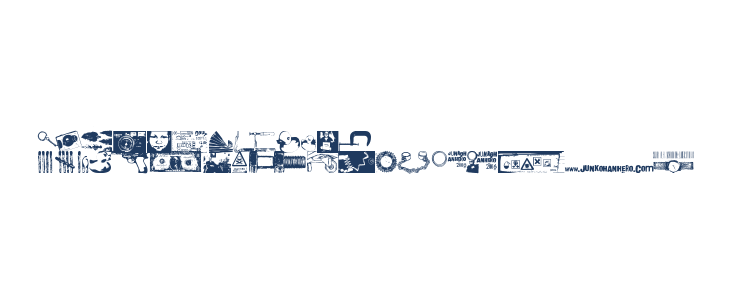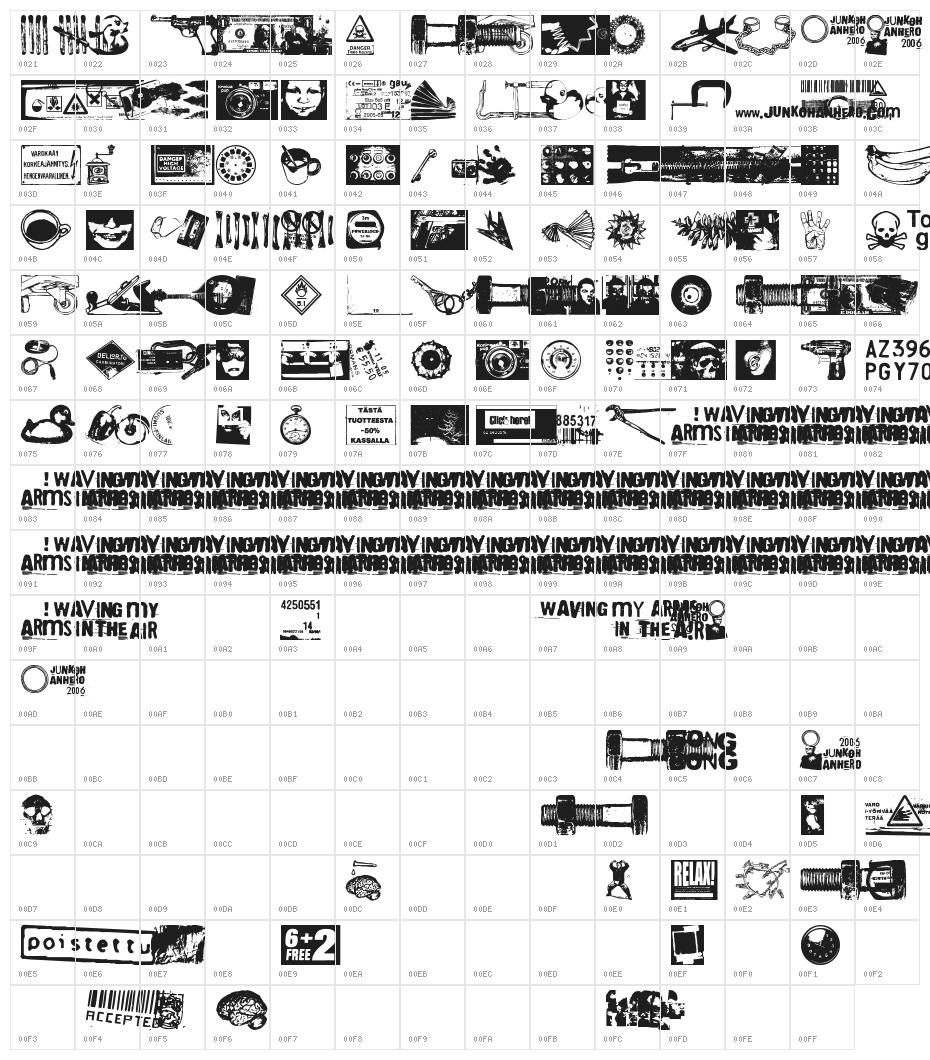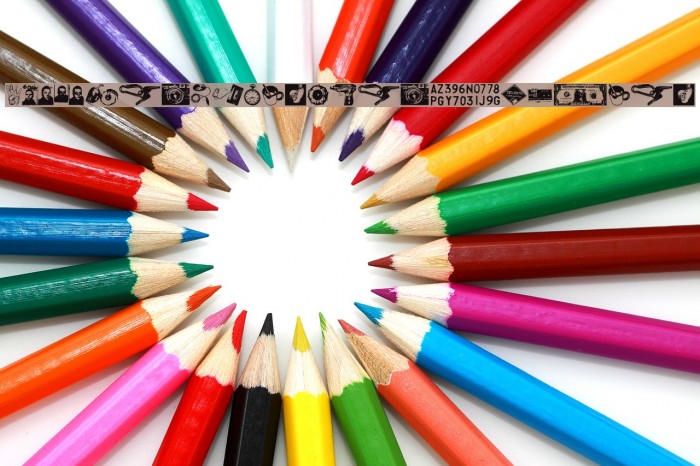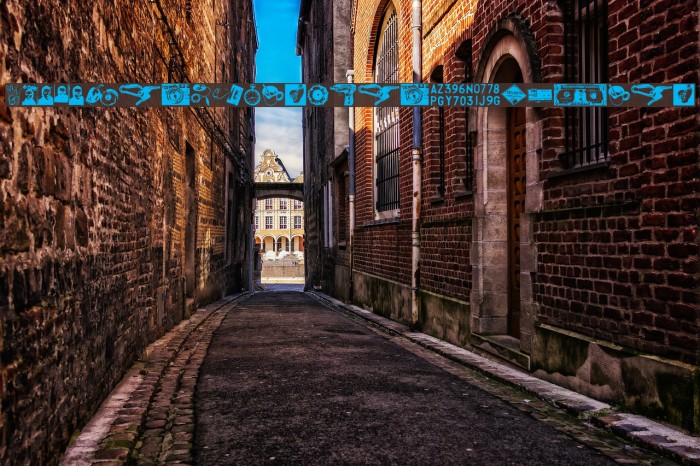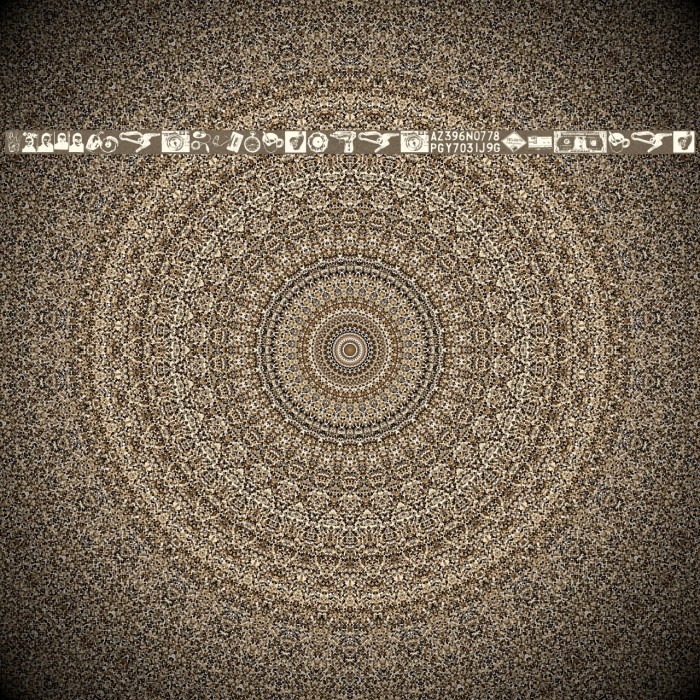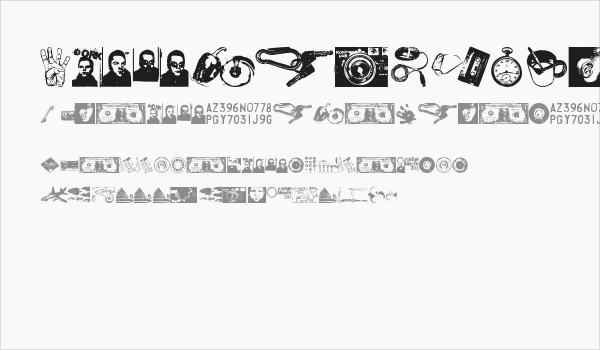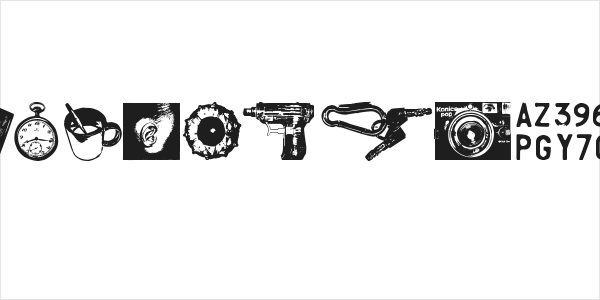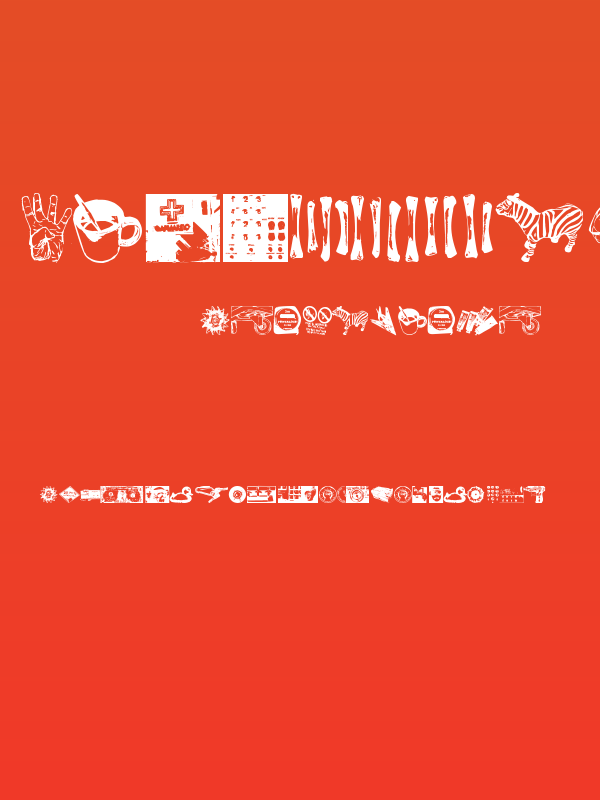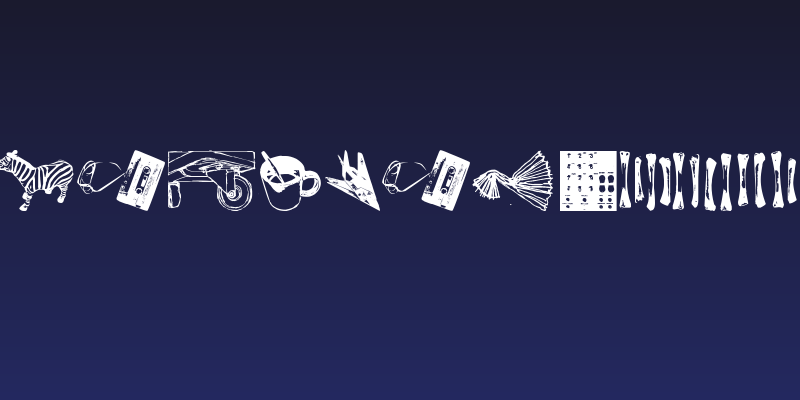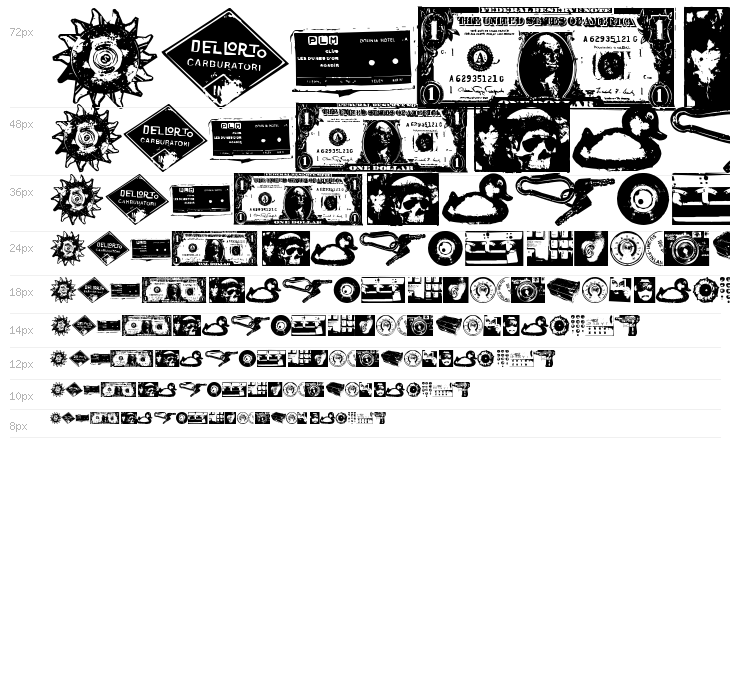
Waving My Arms in the Air Font
Waving My Arms in the Air Description
A highly eclectic and illustrative dingbat font composed entirely of black-and-white collage-style images, including objects, faces, warning signs, tools, and various miscellaneous items. Each character is represented by a unique, detailed pictogram rather than a traditional letterform.
| Overall Style | Decorative, Eclectic, Experimental |
| Use Case | Decorative elements, visual accents, creative projects, not suitable for body text. |
| Proposed Projects | Poster art, zines, album covers, experimental graphic design, visual poetry, scrapbooking, and alternative branding. |